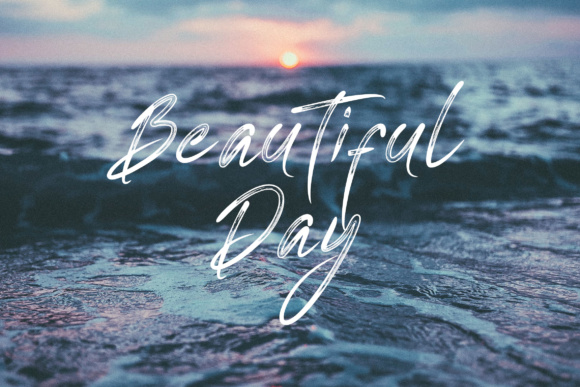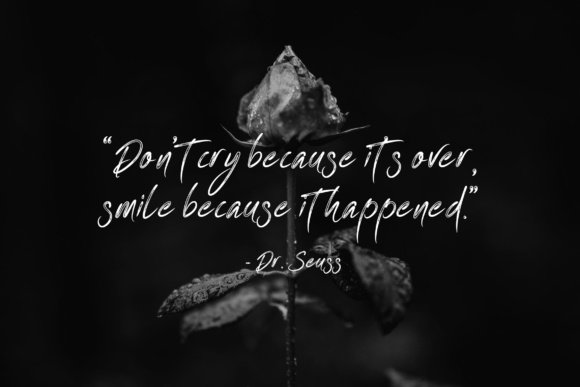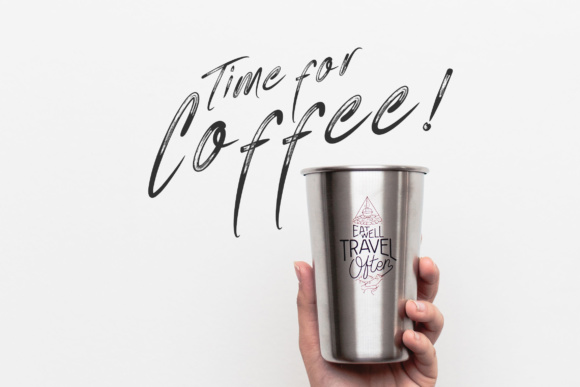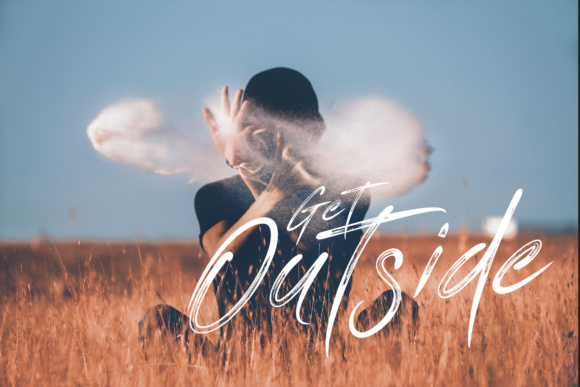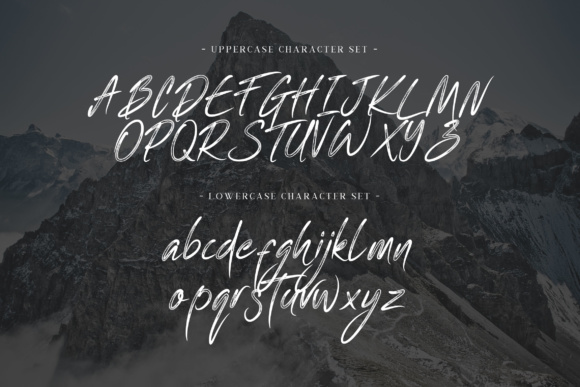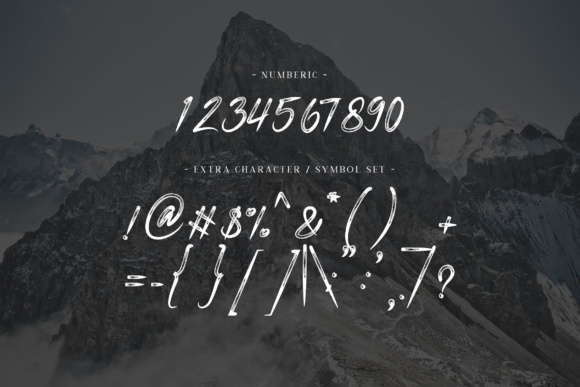
Introduction to One Piece Font Font
Fonts play a crucial role in design, and the One Piece Font font is a typeface that brings both character and versatility to any project. Whether you’re working on a branding project, a website, or a print design, the One Piece Font font offers a unique style that can elevate your work.
One Piece is a catchy and appealing looking brush stroke font, ideal for use in hip and summer displays.
This font reads well and adds tons of texture and grit to your works .
Key Features of One Piece Font Font
Why Choose One Piece Font Font?
The One Piece Font font is more than just a typeface – it’s a design tool that helps you communicate your message with style and clarity. Its unique character set and versatile design make it suitable for a wide range of applications, from elegant invitations to bold headlines.
With its carefully crafted letterforms and balanced proportions, the One Piece Font font ensures readability and visual appeal across all mediums.
What makes One Piece Font font special?
The One Piece Font font stands out with its unique design, exceptional readability, and versatility across various design applications.